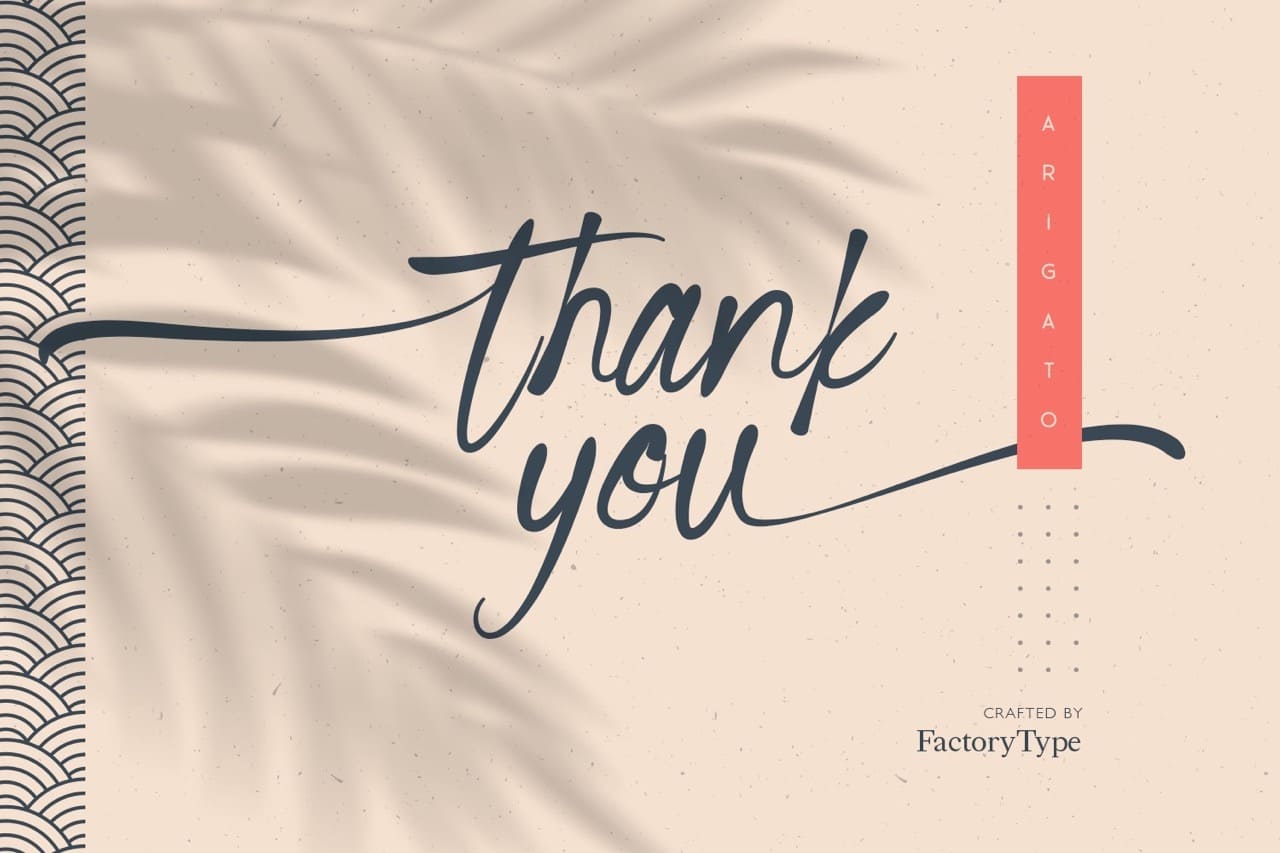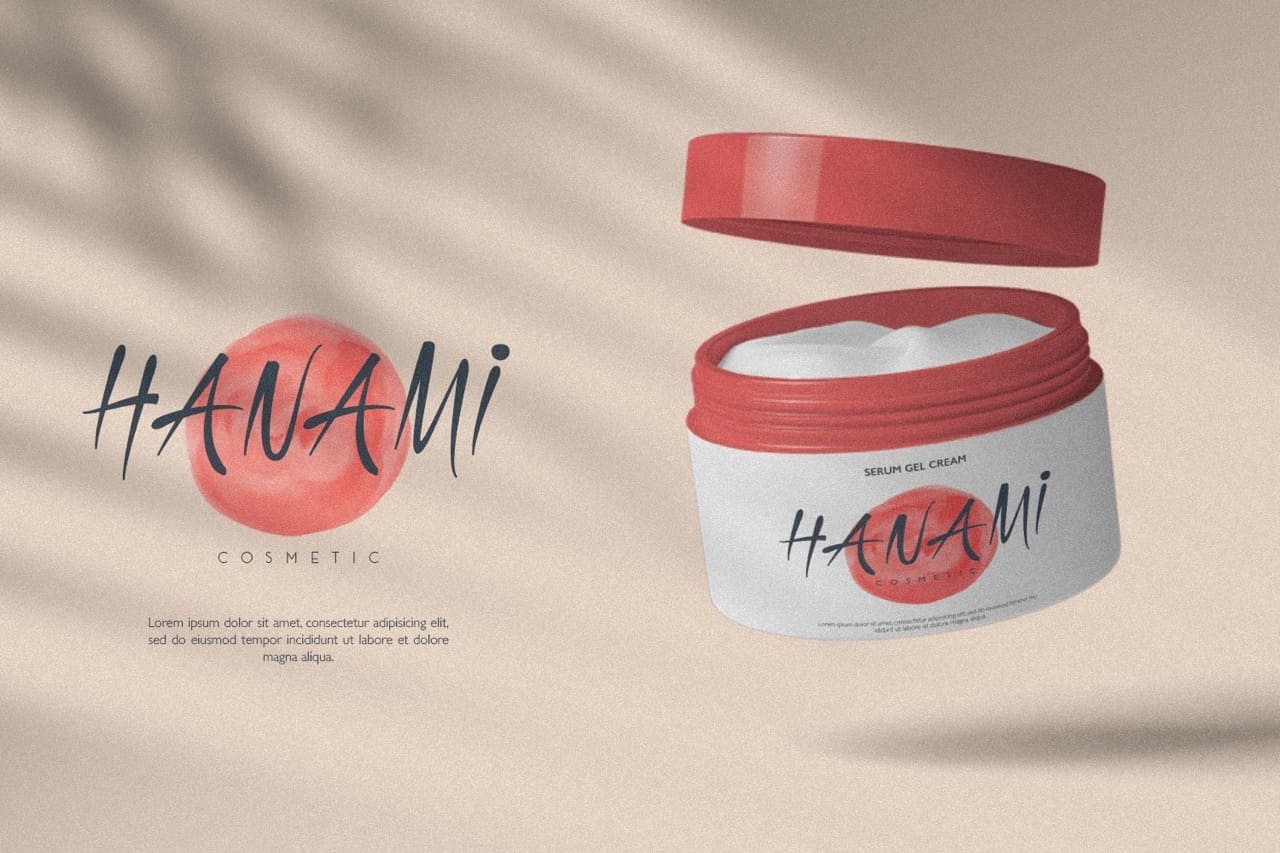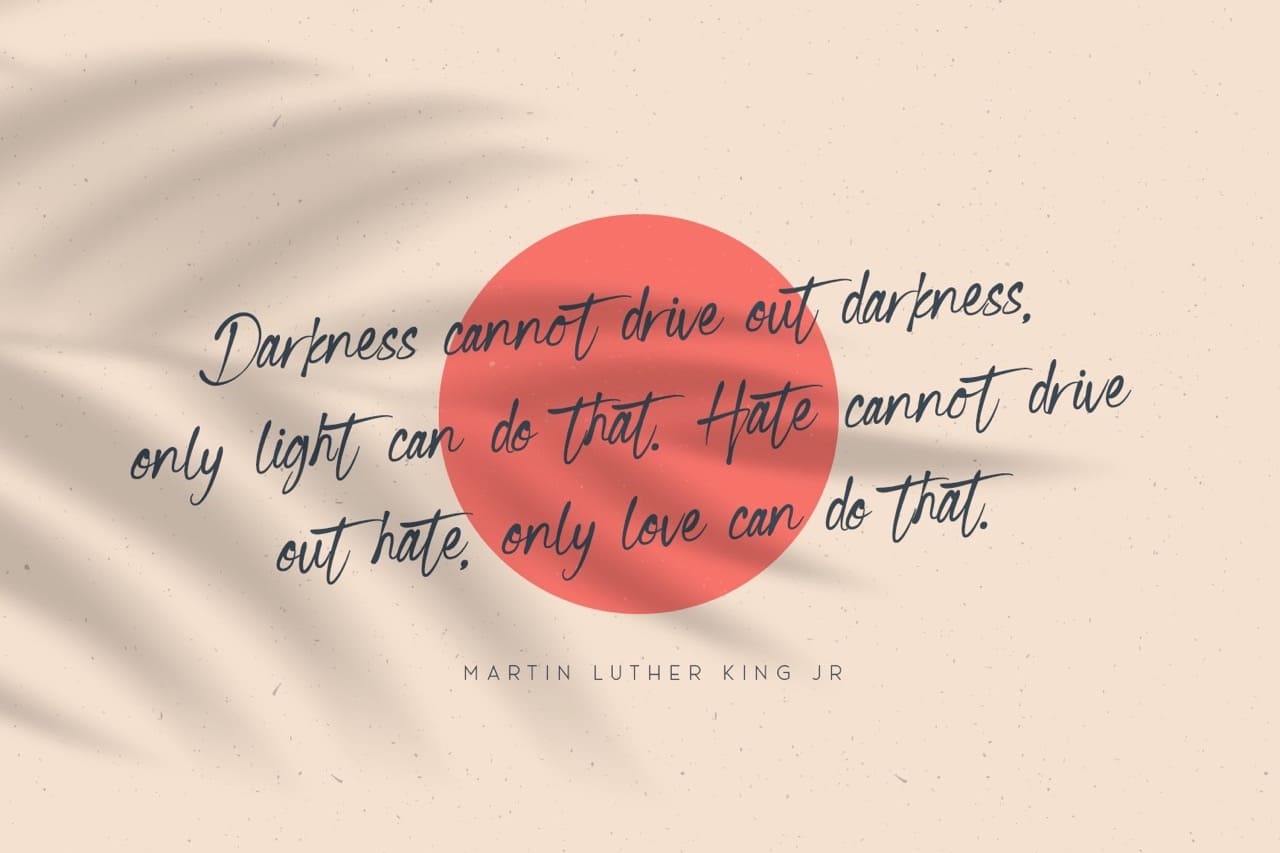
Hiroo! has a natural appearance and is easy to read. Every letter has been meticulously crafted to give your text the appearance of handwritten ink. hiroo! works well at small sizes, creating headers and logos. It’s perfect for any project that requires a contemporary feel or vintage ambiance—and it’s free to use!
- 3 Styles
- Stylistic Ligatures and Alternate Glyphs
Hiroo Handwriting